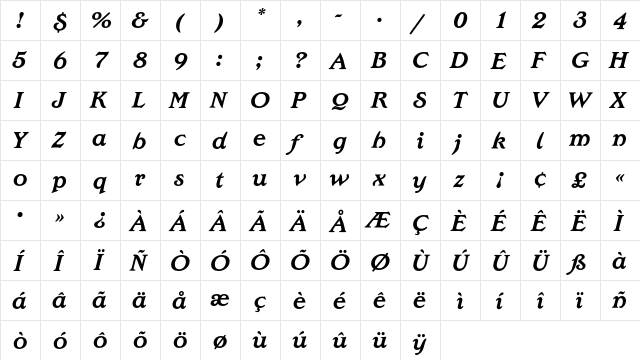
EdwardianEF BoldIta Font Preview
EdwardianEF BoldIta
Design Context for EdwardianEF Typeface
EdwardianEF offers clean, dependable letterforms without strong stylistic allegiance, making it a practical choice for designers who need flexibility. The heavy weight commands attention and anchors typographic hierarchies.